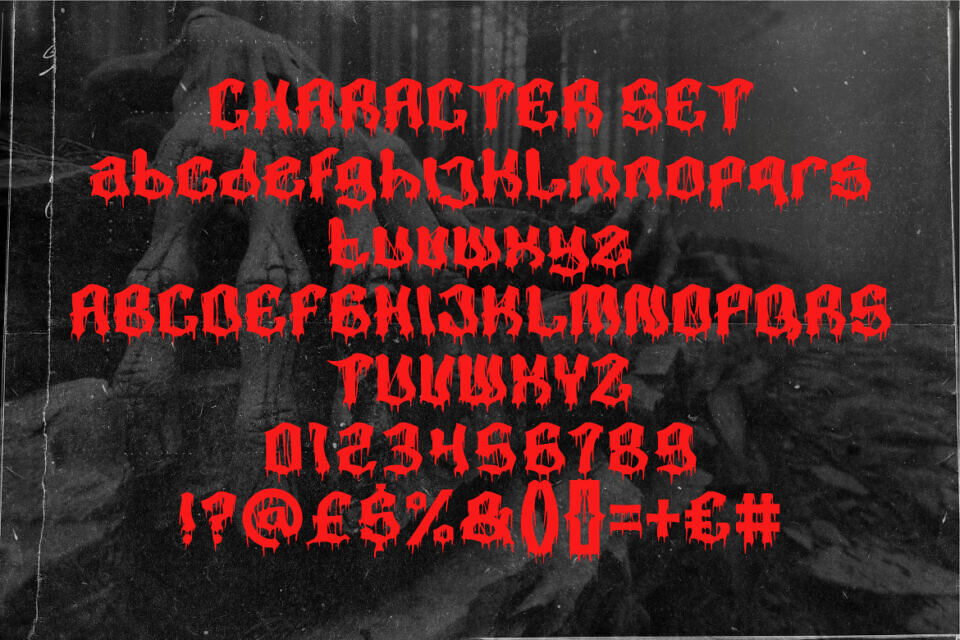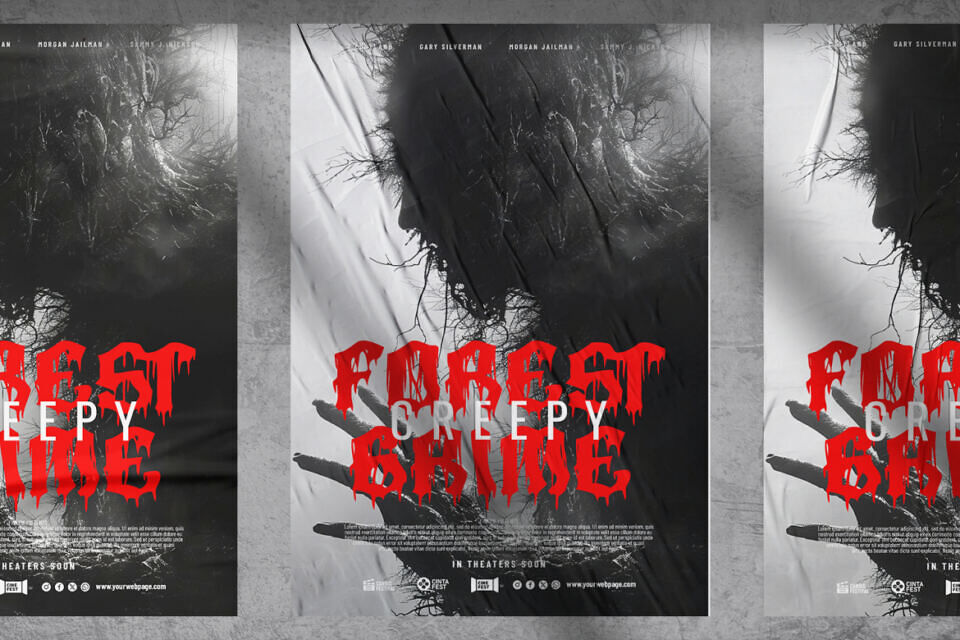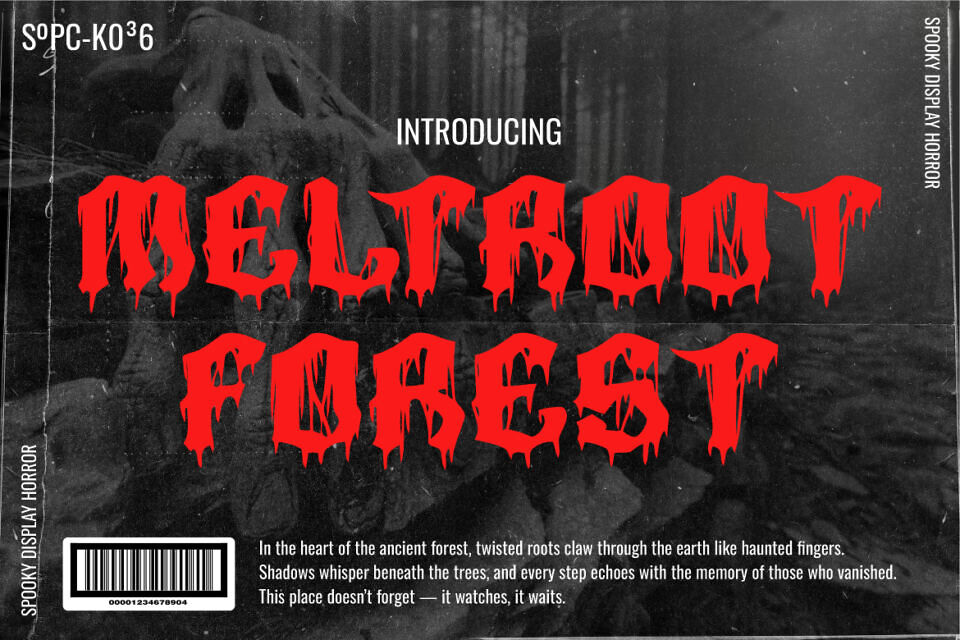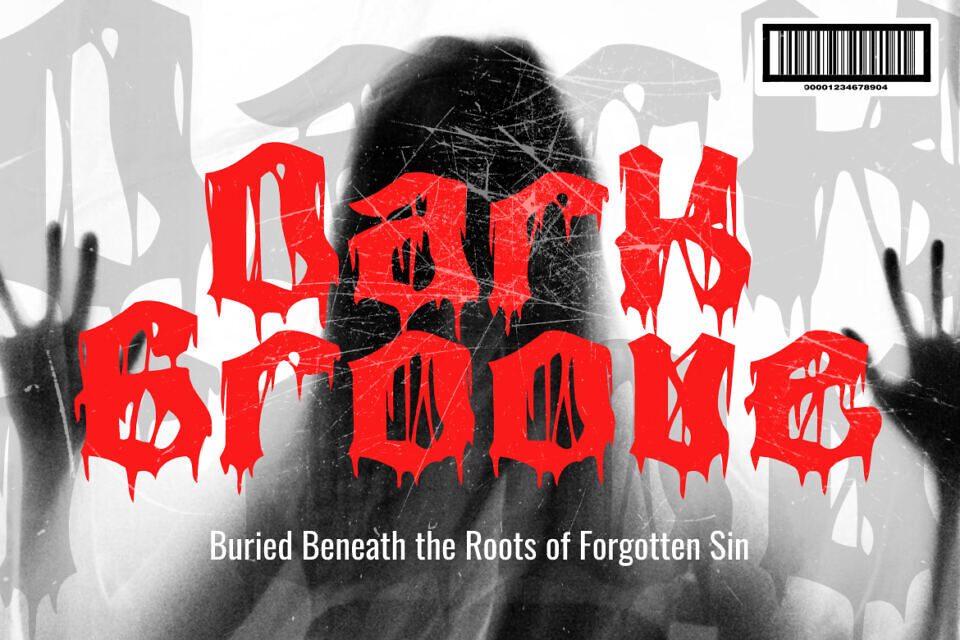
Meltroot Forest Font
Meltroot Forest is a terrifying horror font evoking darkness and dread. Inspired by haunted woods and vintage horror, its bleeding, melty letters resemble dripping blood or wax, creating a sinister atmosphere.
Perfect for horror branding, slasher films, and Halloween, its jagged yet readable design ensures impact and legibility. This versatile font, with uppercase, lowercase, numbers, and symbols, adds fear and tension to any project.